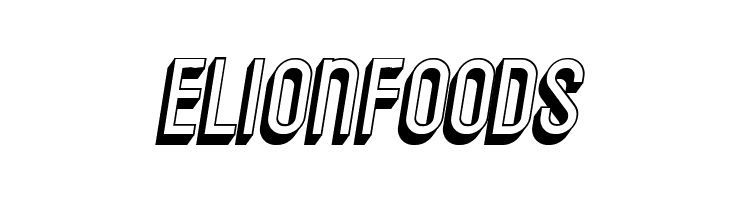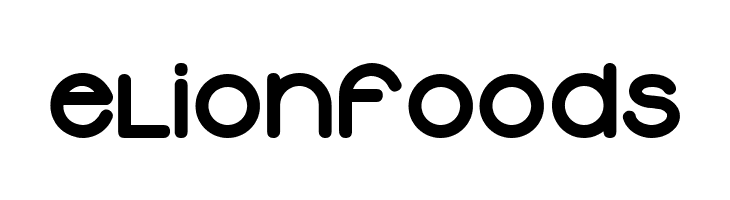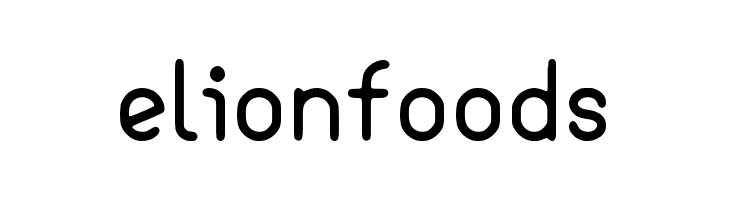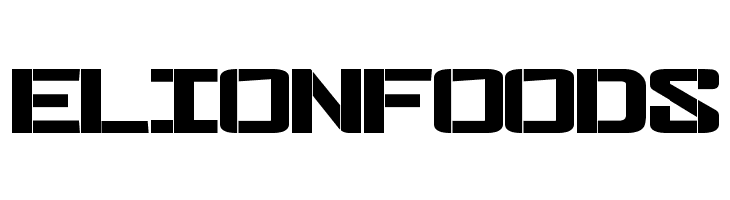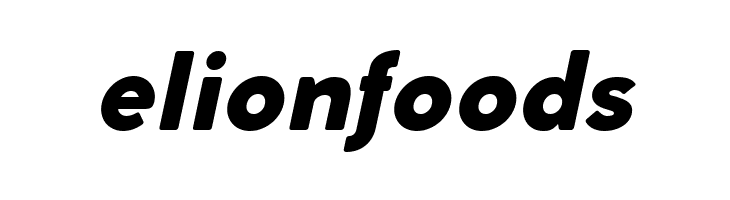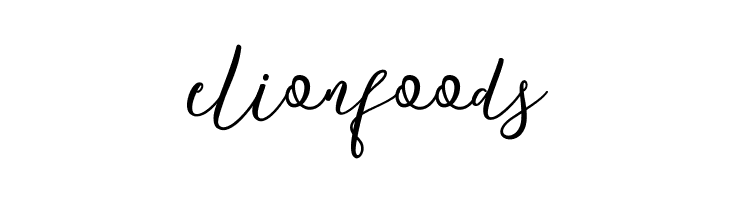
Bold, italicized font with a 3D shadow effect for a dynamic look.
A bold, rounded font with a modern and playful style.
A playful, rounded font with a friendly and approachable design.
A bold, geometric font with a modern and dynamic style.
A bold, geometric stencil font with high contrast and industrial appeal.
A playful, handwritten font with a casual and informal style.
A bold, italicized font with a modern geometric style.
A stylish and elegant script font with fluid, connected strokes.
A bold, textured font with a distressed, vintage look.
A bold, ornate Blackletter font with intricate Gothic styling.